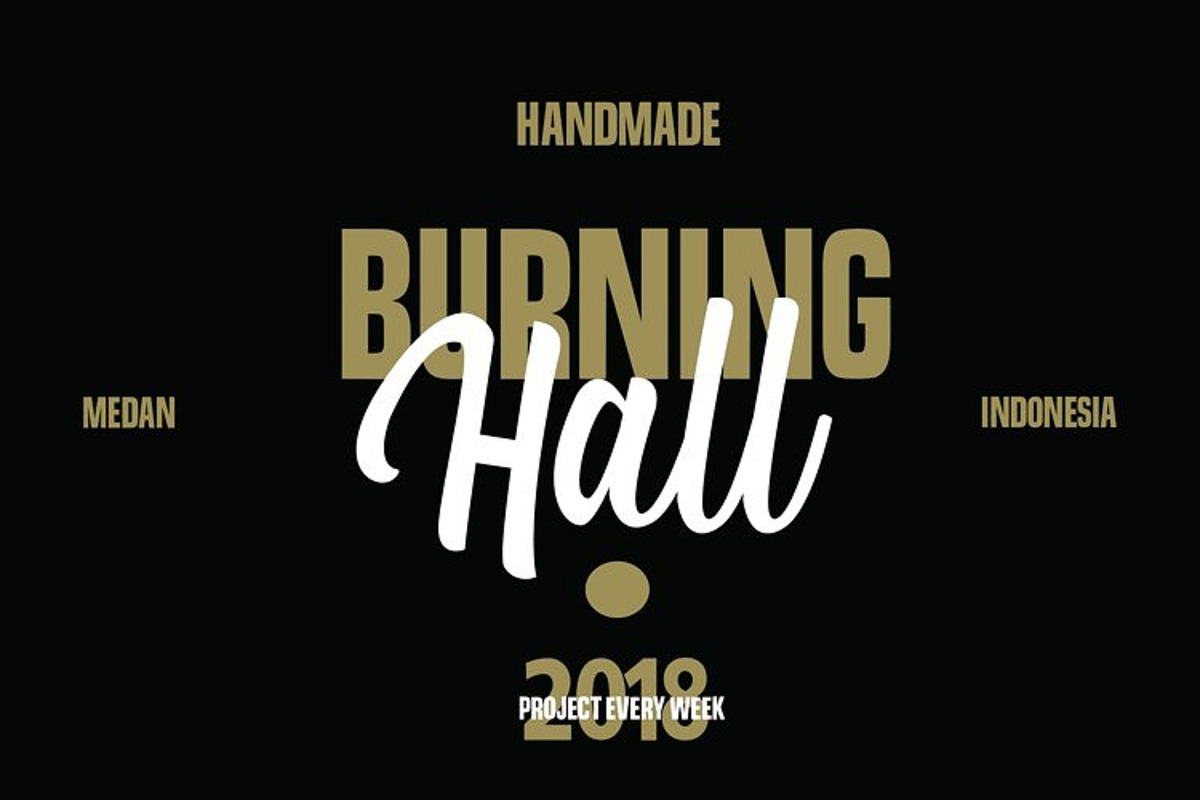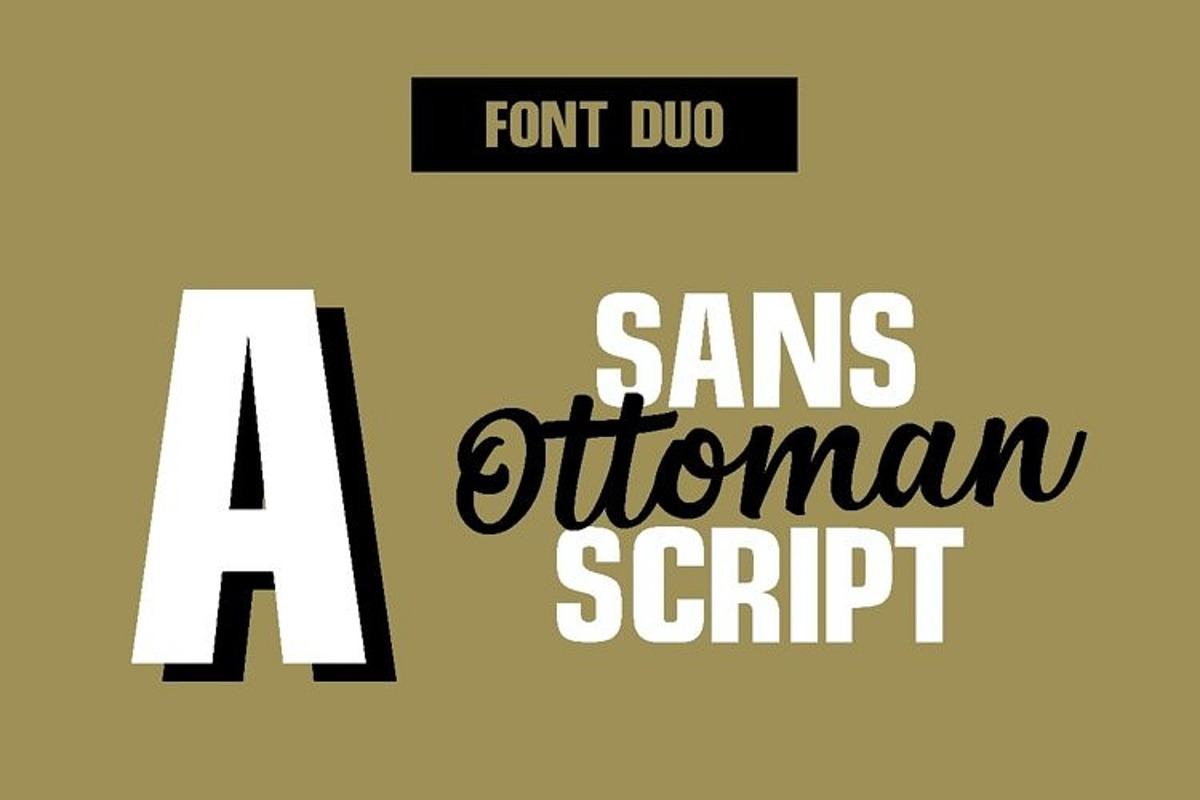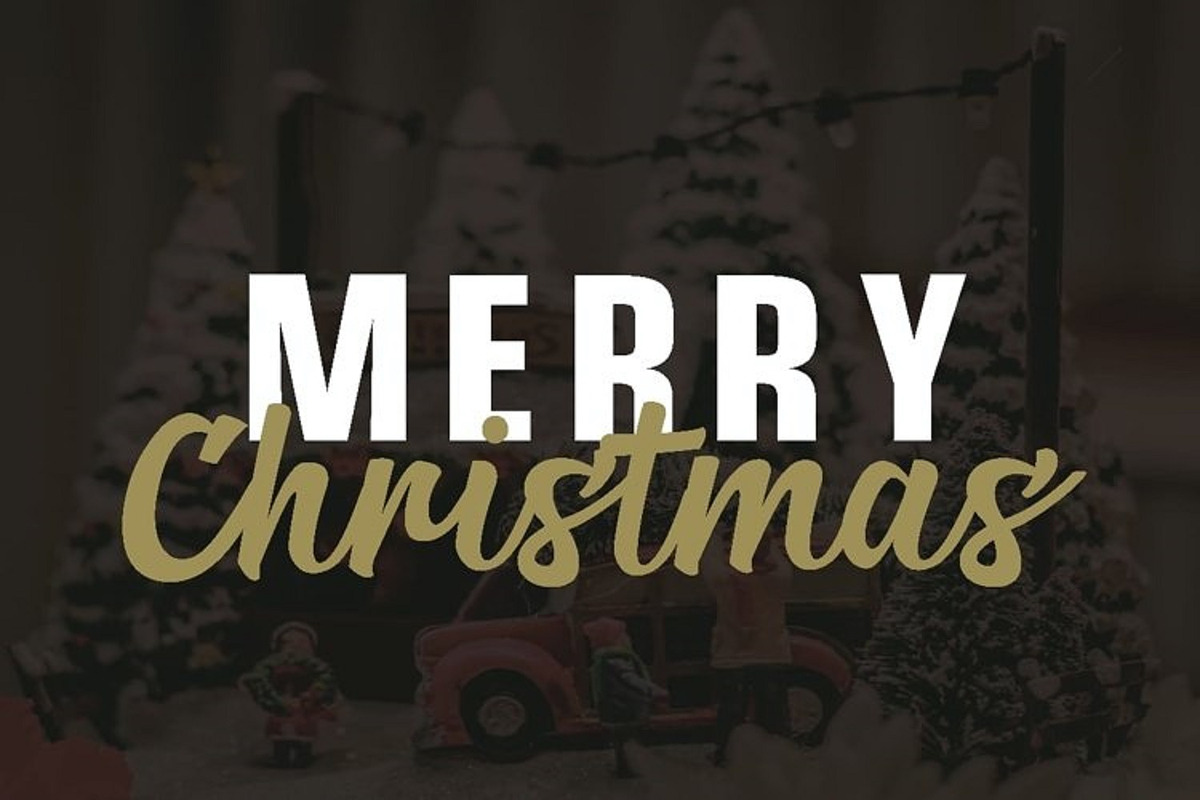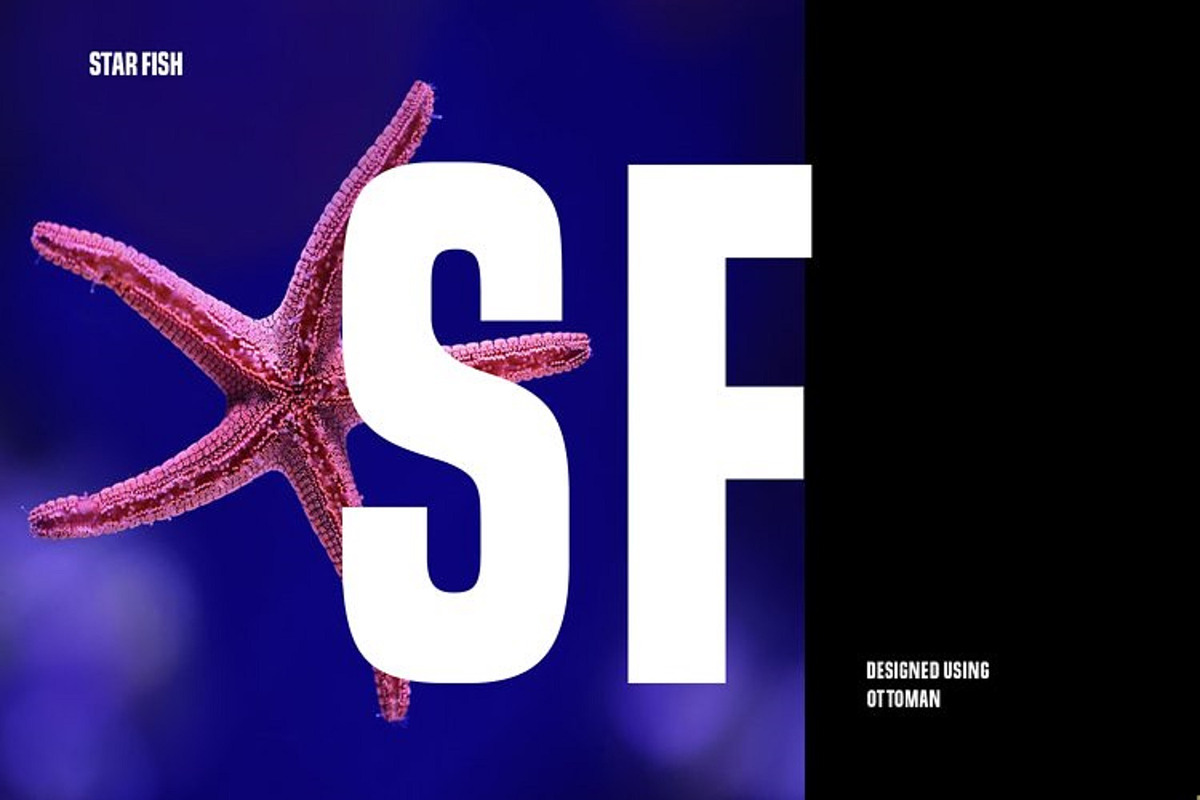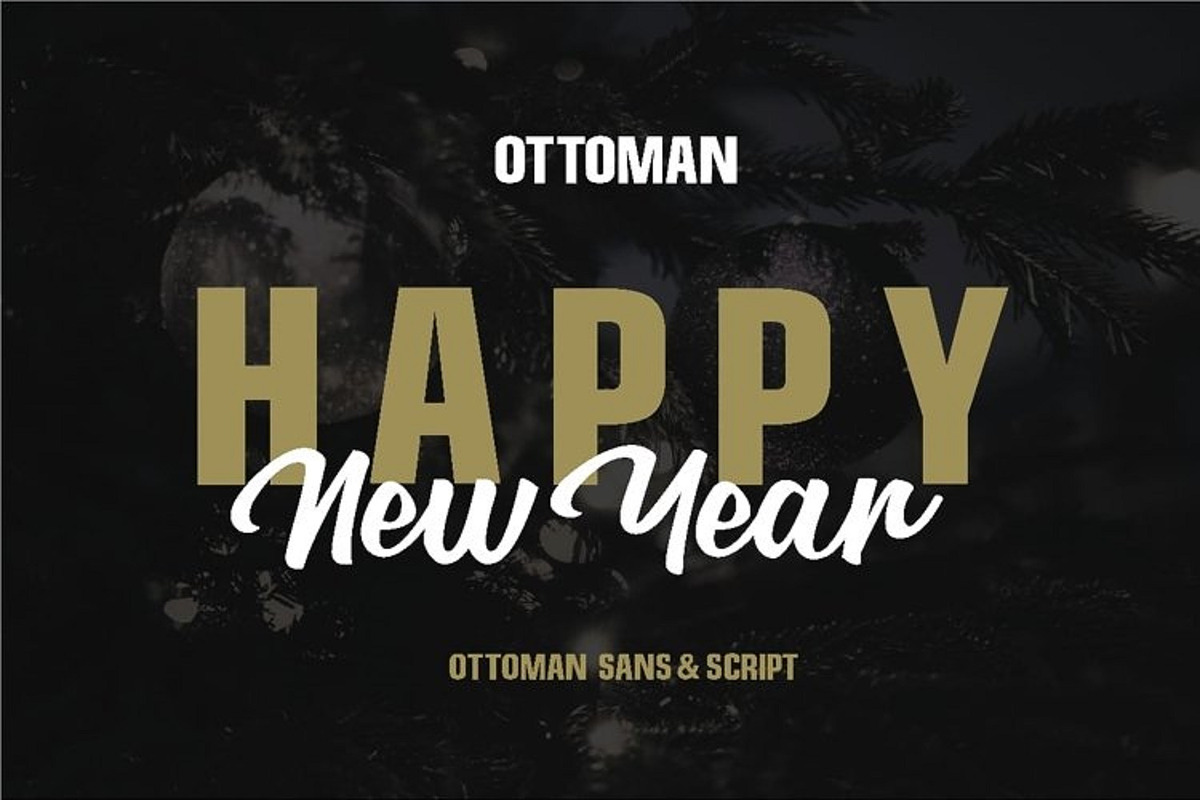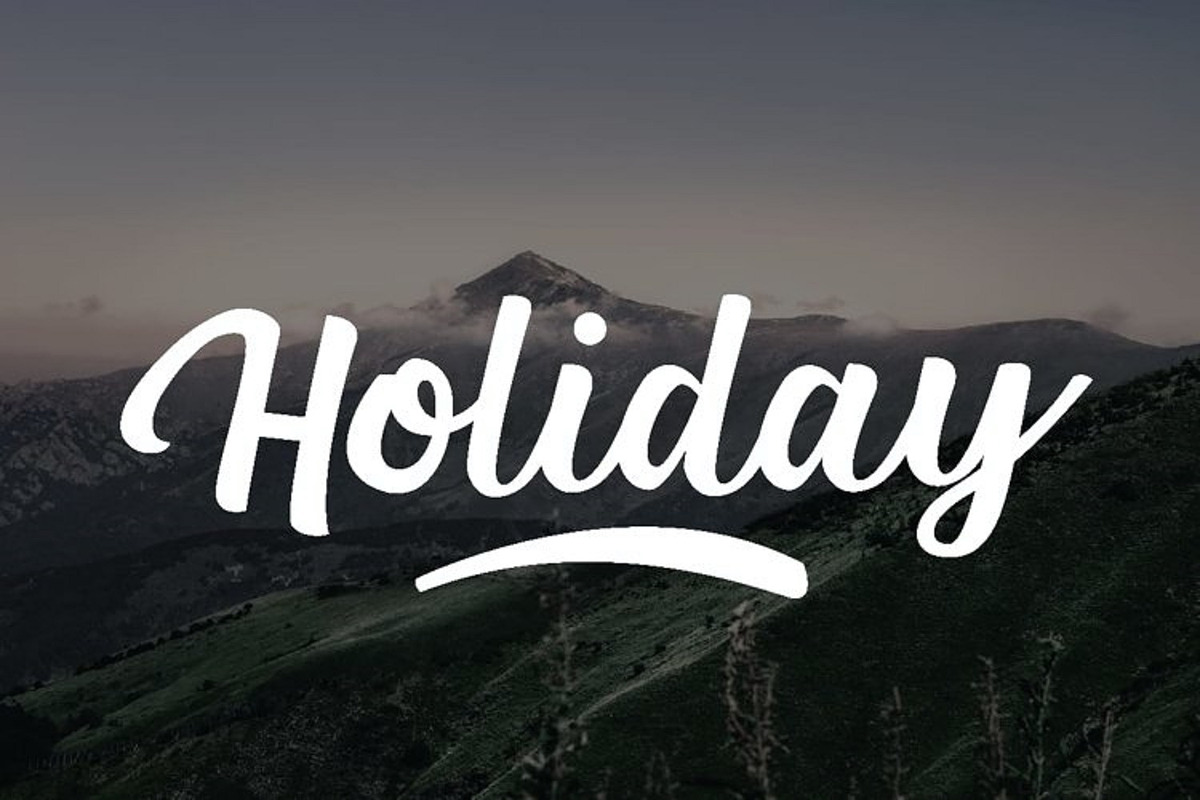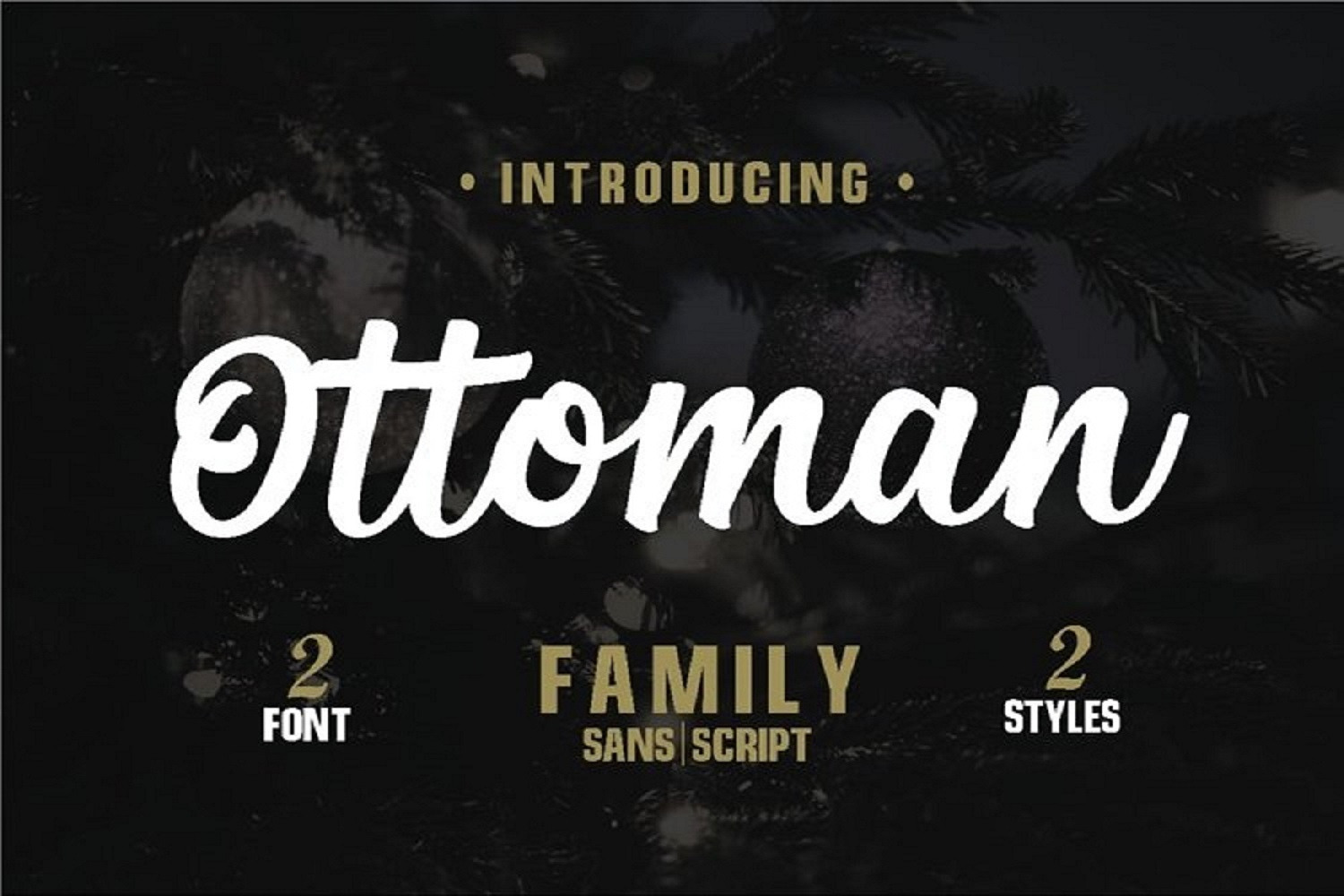
Ottoman – Elegant Christmas Font
Ottoman – Font Family (Script & Sans)
Ottoman is a stylish and versatile font family featuring two main styles: a flowing Script and a clean Sans. This combination offers the perfect balance between elegance and modernity, making it ideal for a wide range of design projects such as branding, wedding invitations, product packaging, logos, and social media content.
The Script style brings a natural handwritten feel with smooth curves, while the Sans style offers a bold, modern contrast. Use them together to create a cohesive and visually striking design.
- 2 Font Styles: Script & Sans
- Stylistic alternates (for Script)
Great for logos, posters, and product packaging